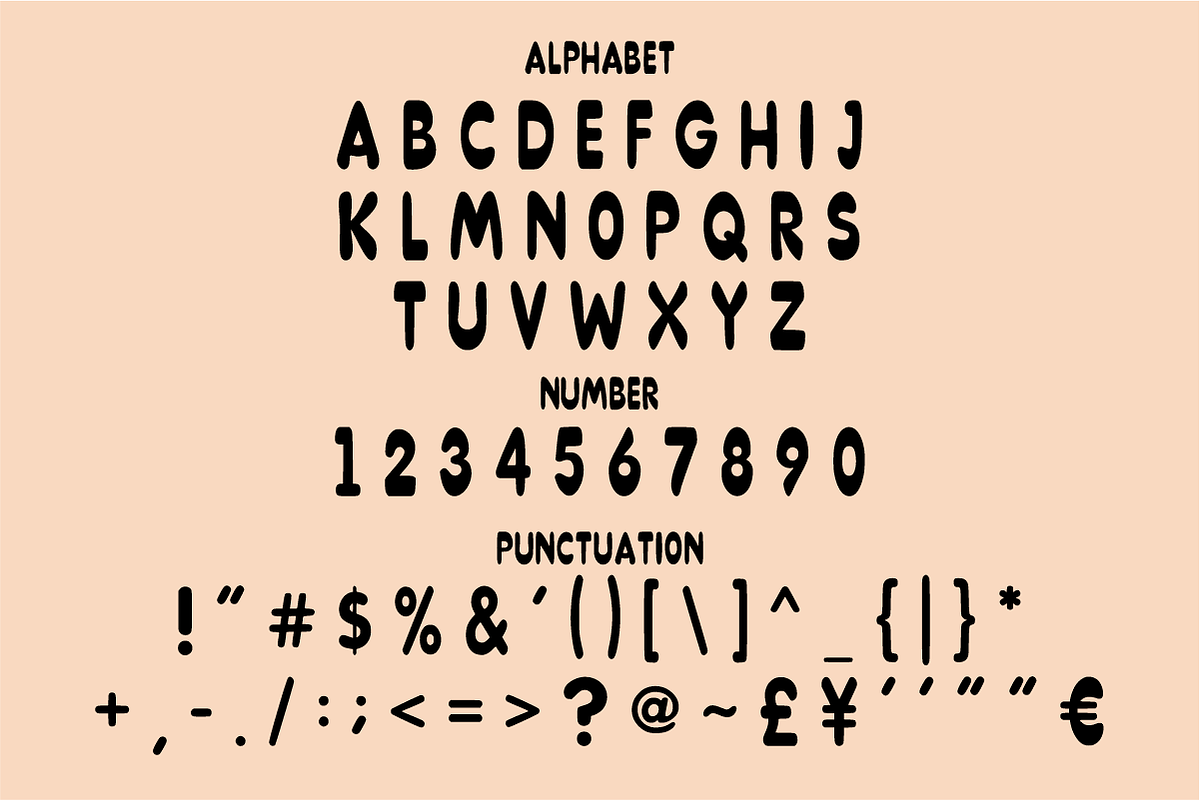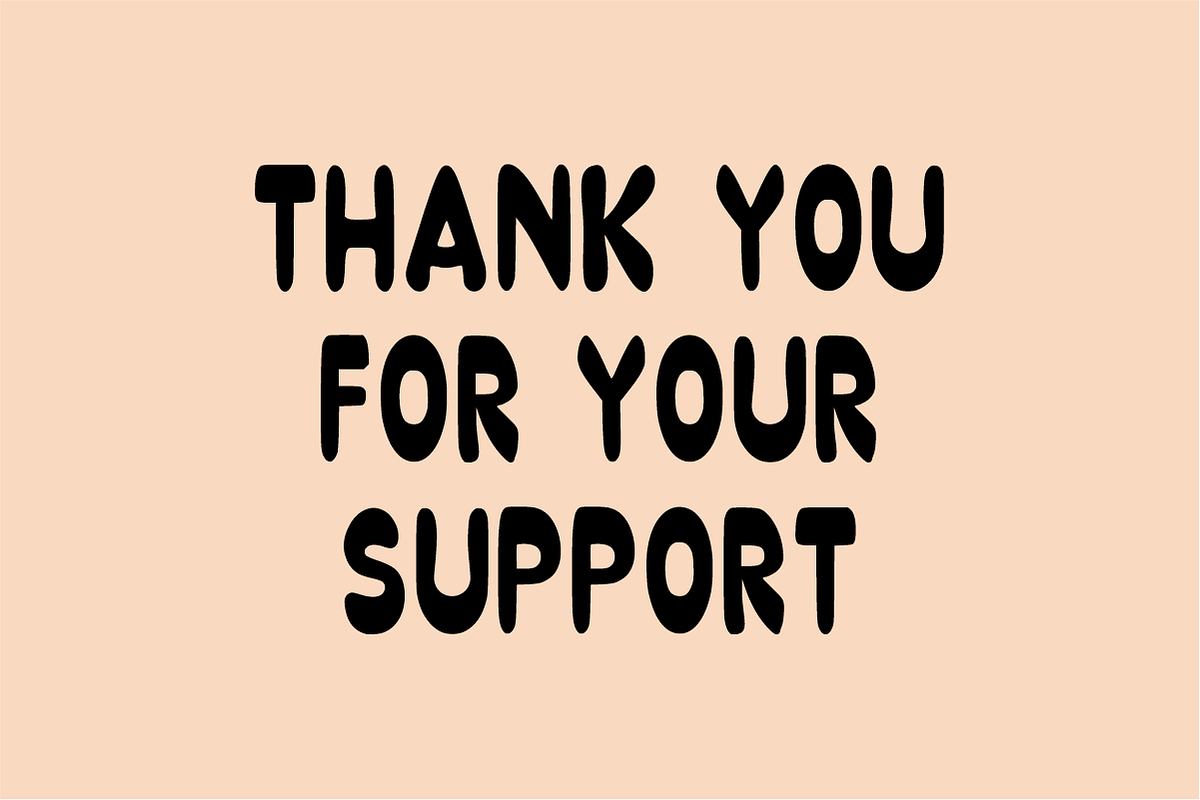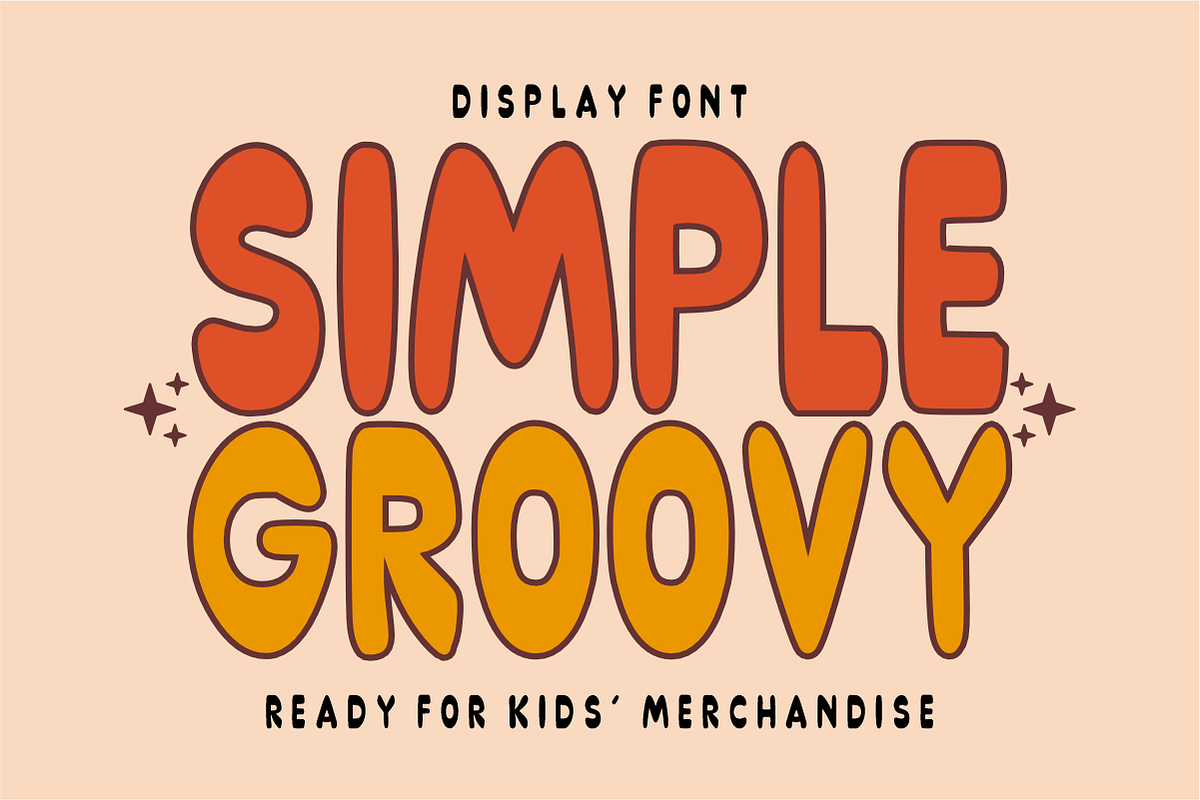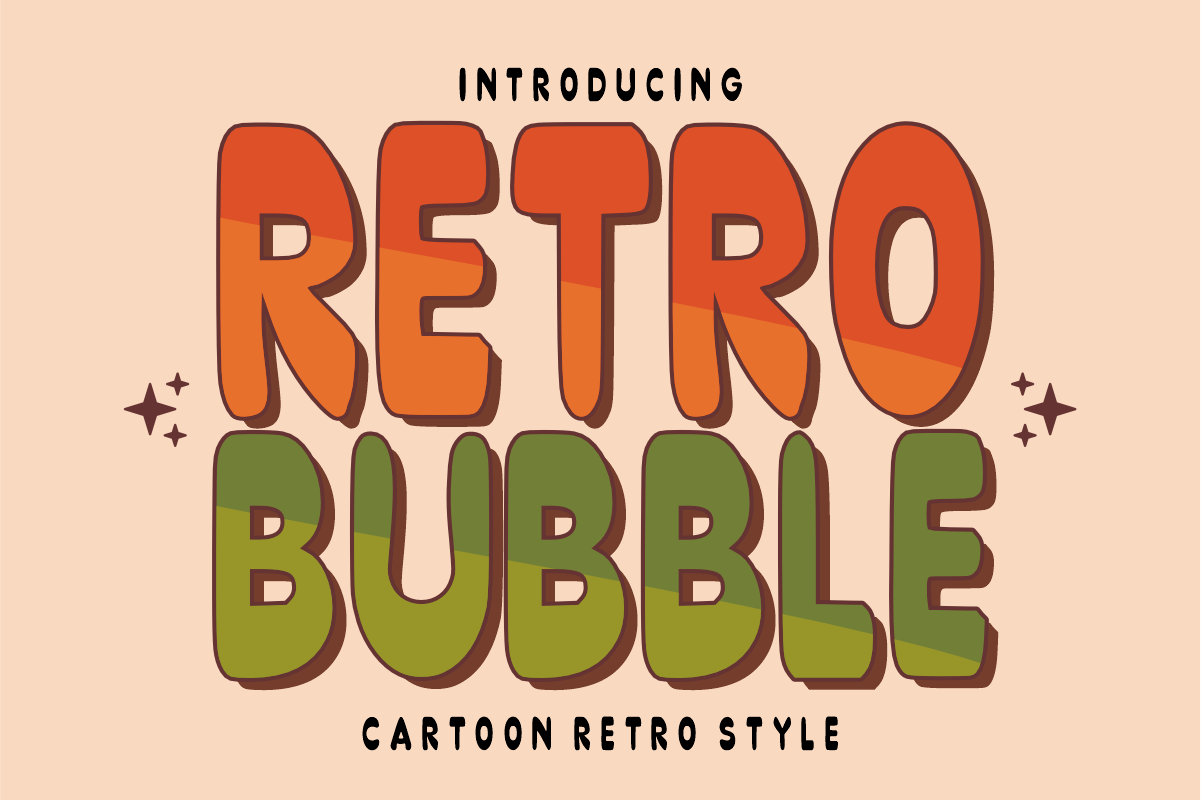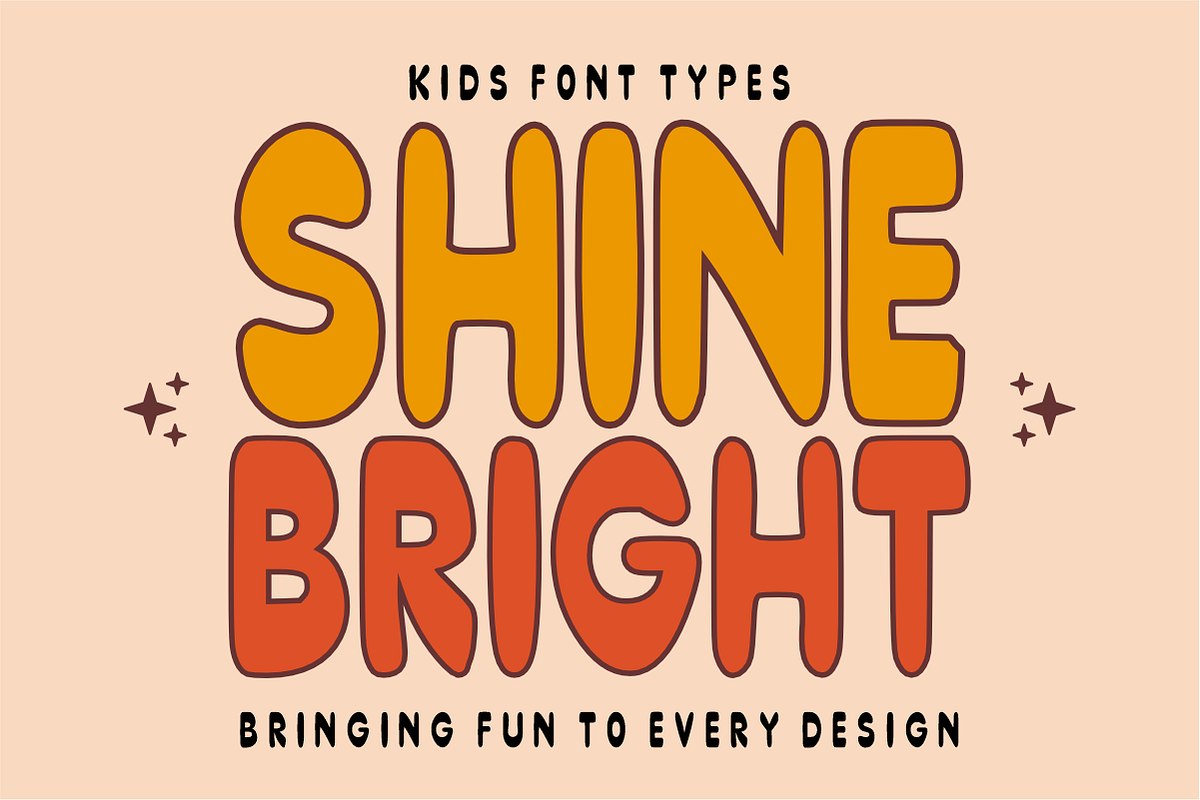
Retro Bubble - Puffy Display Font
🎈 Hey Groovy Creators! Meet Retro Bubble - The Ultimate Puffy Display Font! 🌸
Ready to inflate your designs with pure nostalgic joy and playful energy? Retro Bubble is a premium display font featuring thick, soft, balloon-like letterforms inspired by the cheerful aesthetics of the 70s psychedelic era and trendy Y2K street style.
It’s bold, bubbly, and meticulously crafted for designers who want their headlines, stickers, and apparel to pop with an effortlessly fun and friendly vibe!
✨ What’s Packed in the Bubble Kit:
\_ 🔠 \_\\Bold Uppercase Letters (A-Z)\\\\\* – Thick, rounded, and puffy characters full of happy personality.
\_ 🔢 \_\\Matching Numbers (0-9)\\\\\* – Perfect for retro dates, birthday numbers, and fun countdowns.
\_ 🔣 \_\\Simple Symbols & Punctuation\\\\\* – Essential core basics to complete your cheerful layouts.